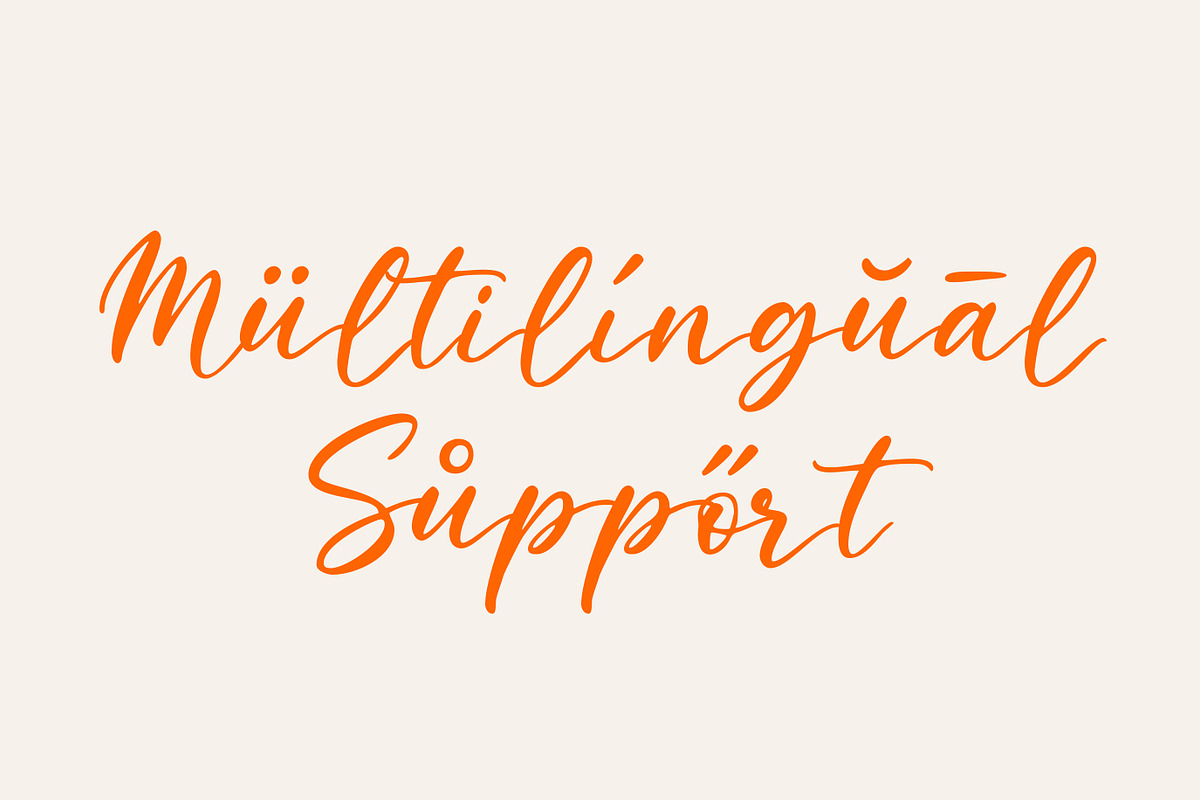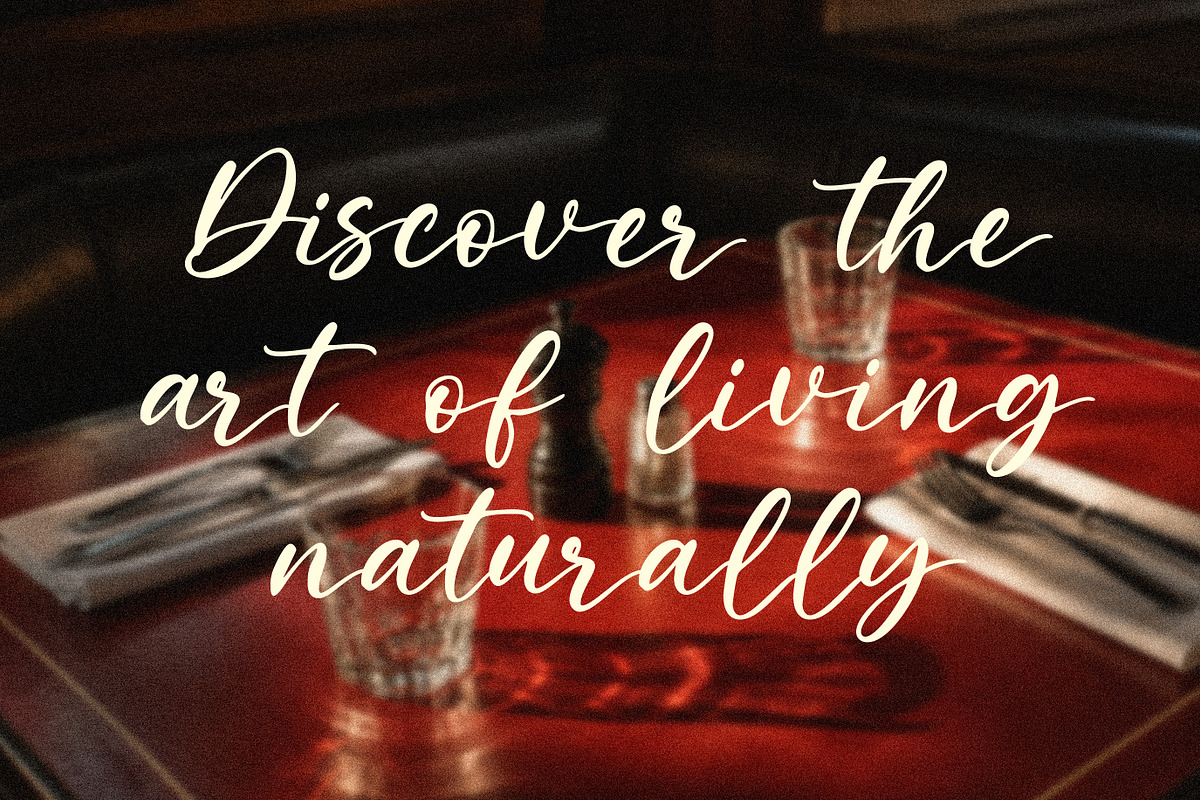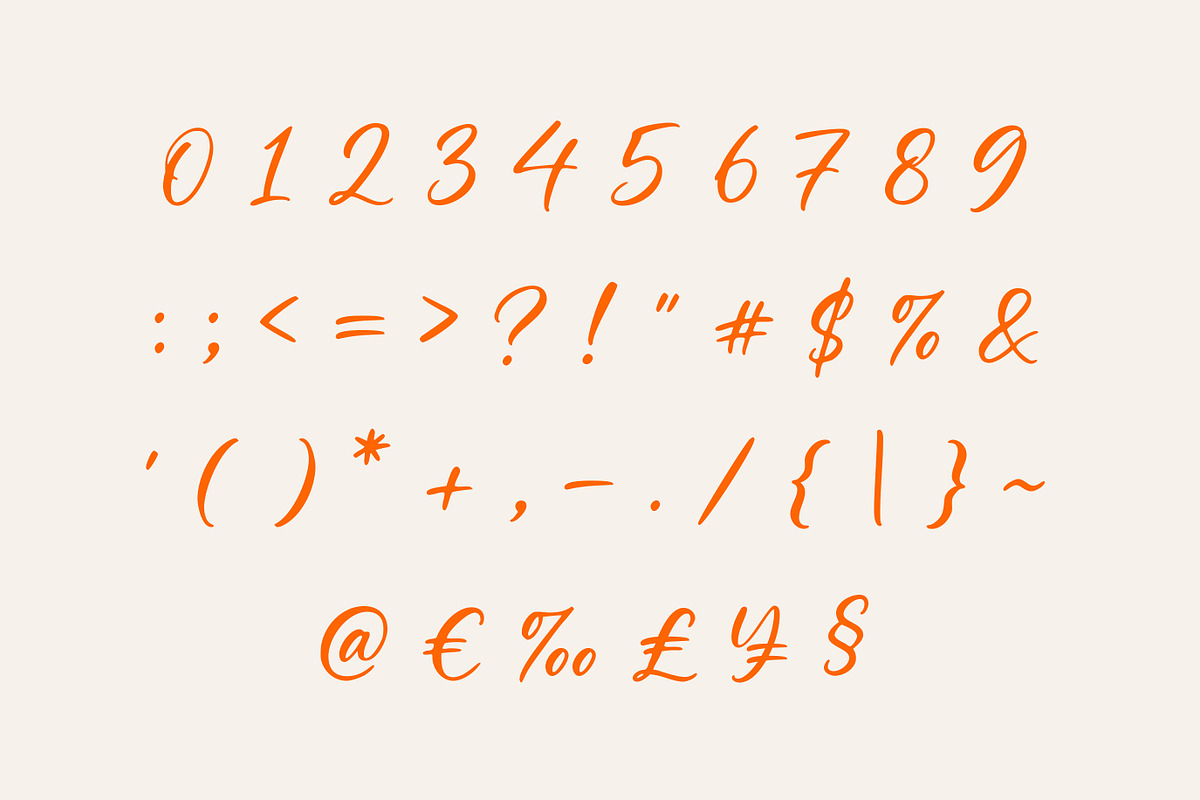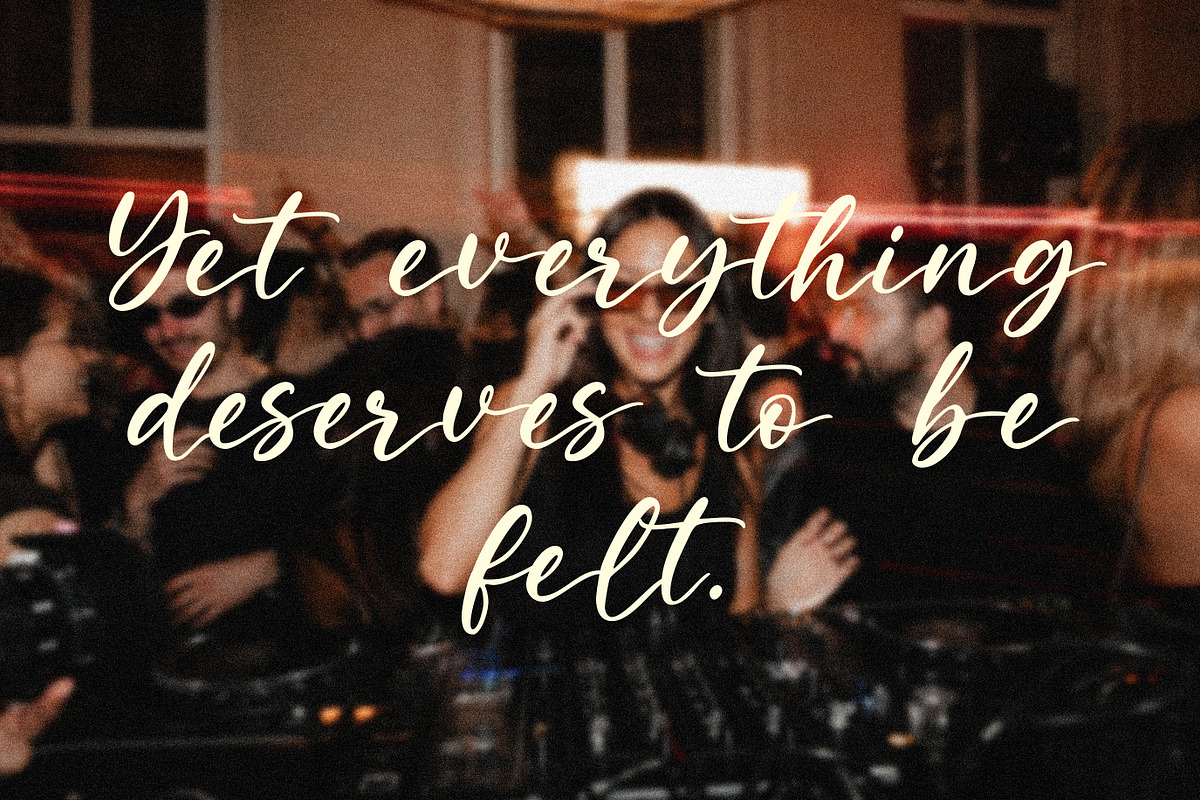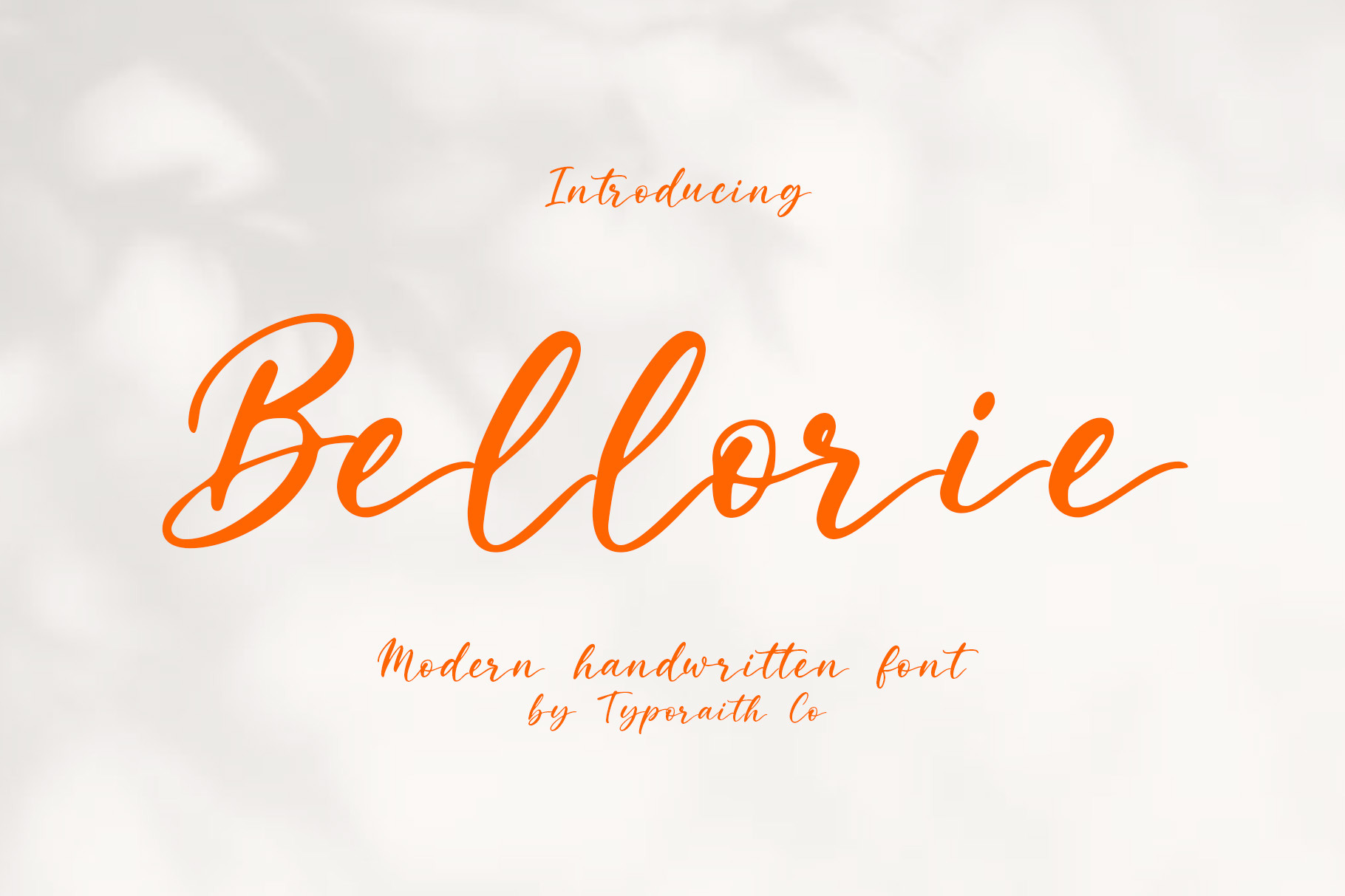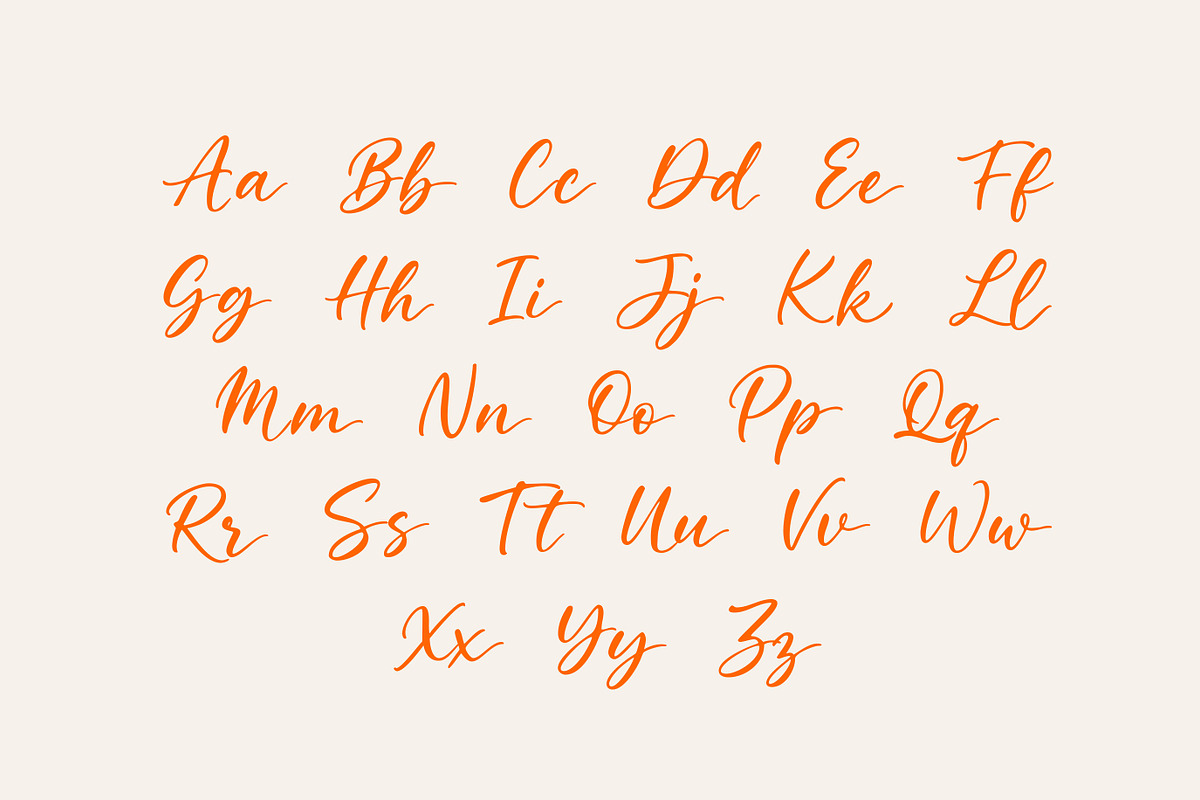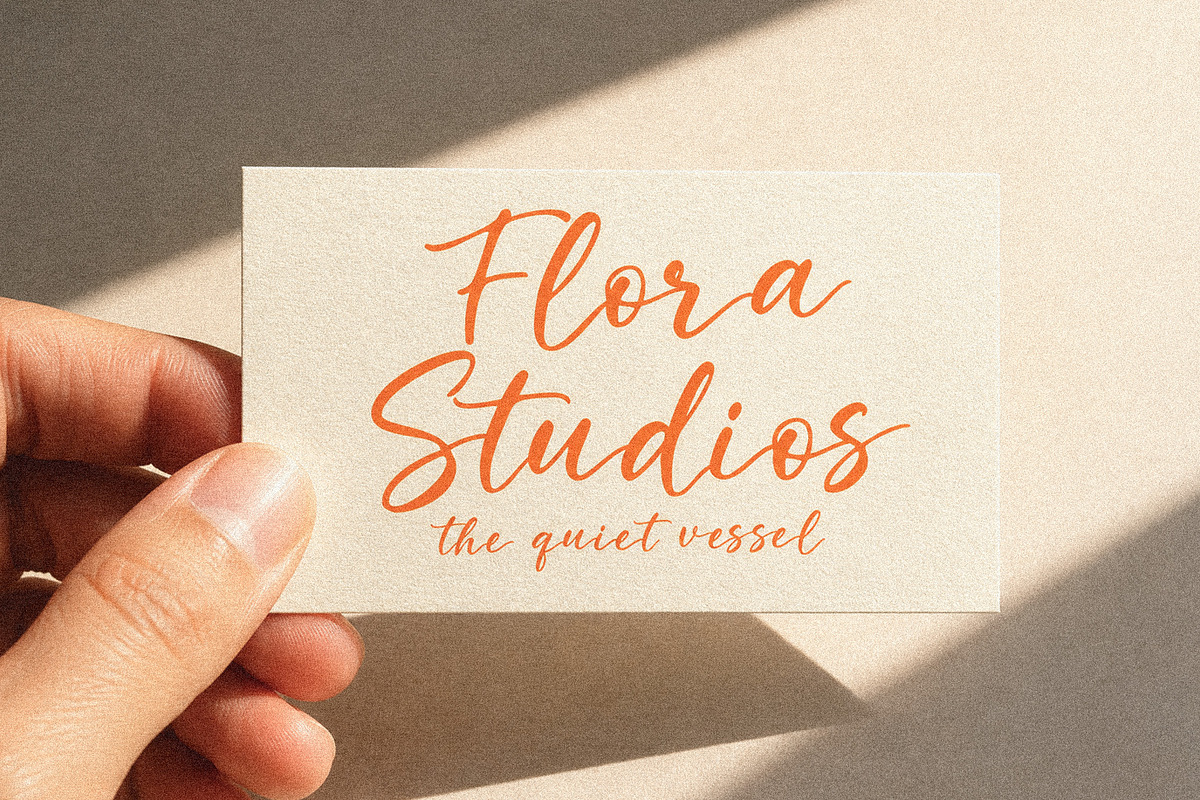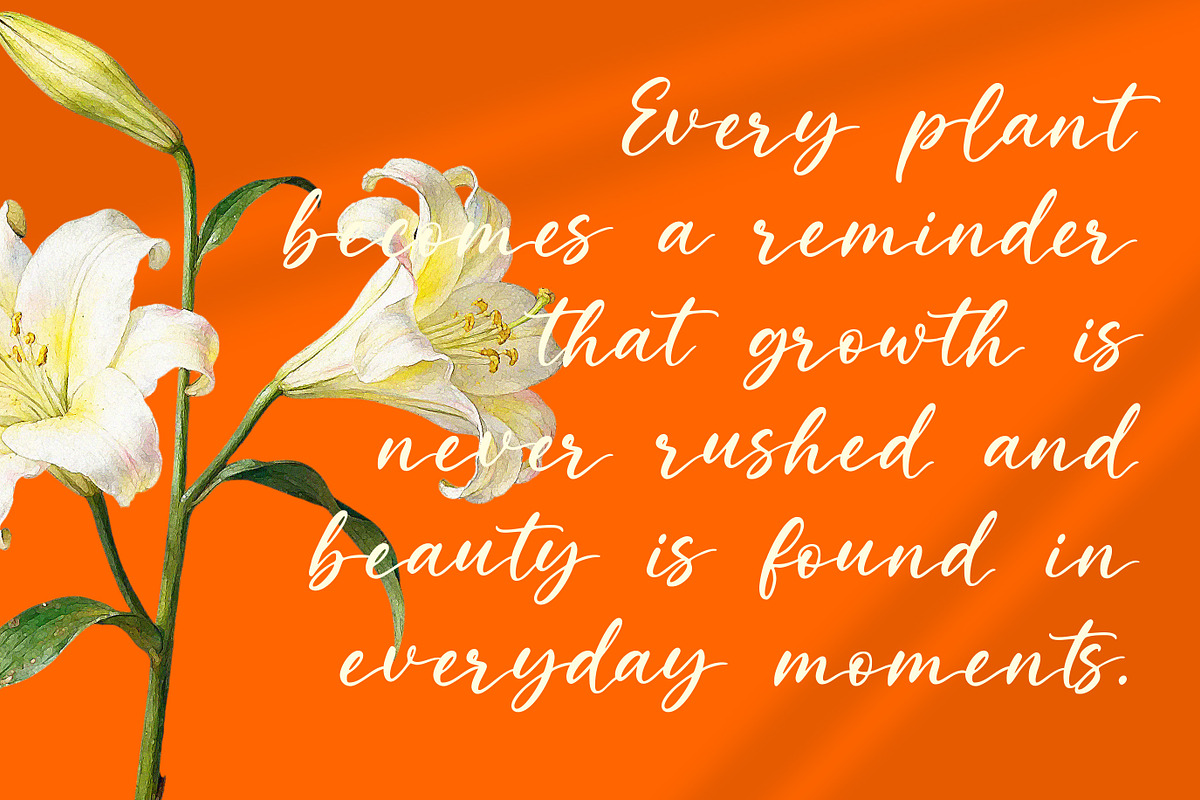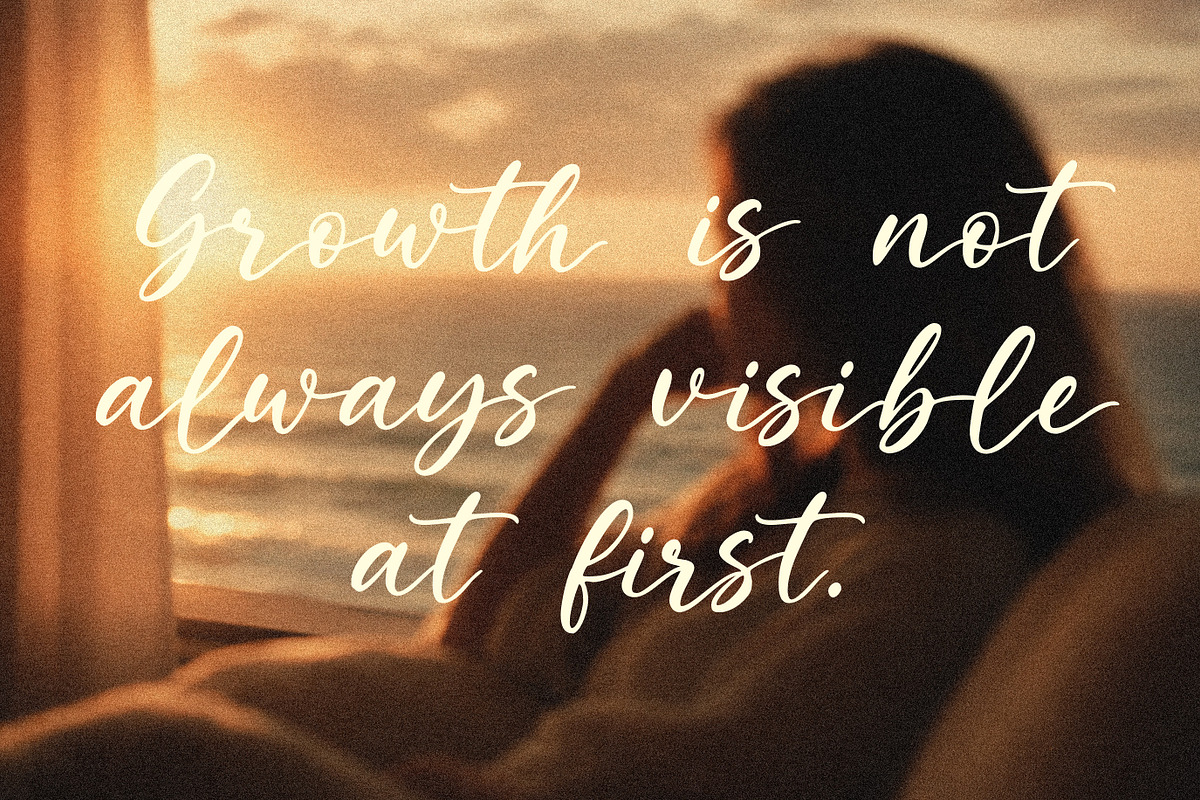
Bellorie | Modern Handwritten Font
Introducing Bellorie, a modern handwritten script font designed to bring elegance and personality to your creative projects. With its smooth flowing strokes and natural handwritten style, Bellorie creates a beautiful balance between casual charm and sophisticated design.
Perfect for branding, logos, wedding invitations, social media graphics, product packaging, quotes, stationery, and more. Bellorie adds a warm and stylish touch that makes every design feel unique and memorable.
Uppercase & Lowercase Letters
Smooth Handwritten Style
Bellorie is carefully crafted to provide a natural writing feel while maintaining excellent readability, making it suitable for both personal and commercial projects.
Bring elegance and creativity to your designs with Bellorie — a timeless handwritten font created by Typoraith Co.